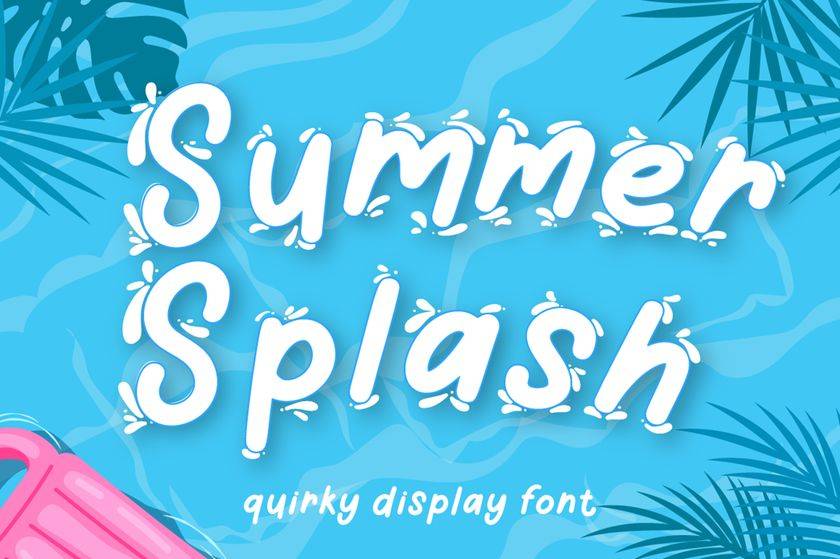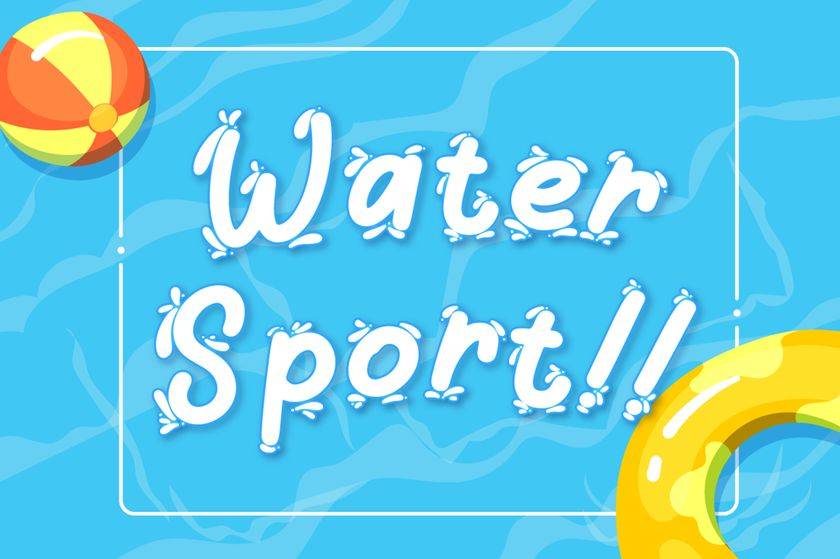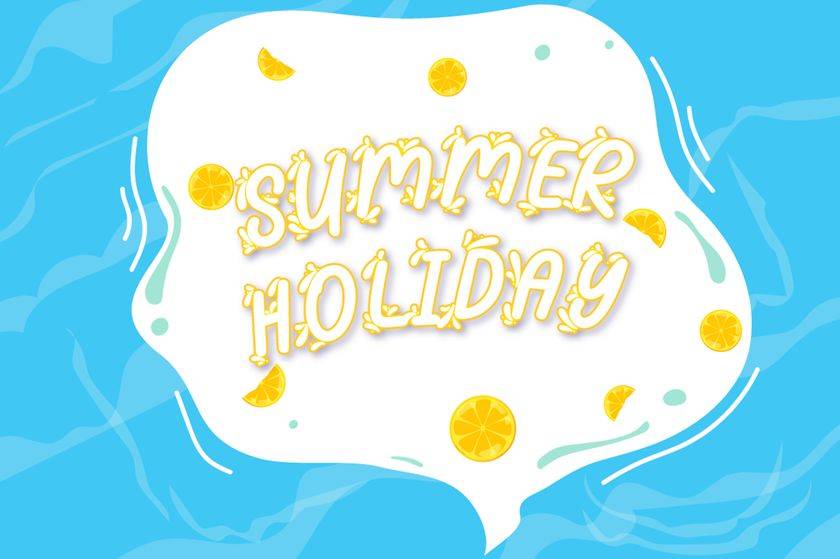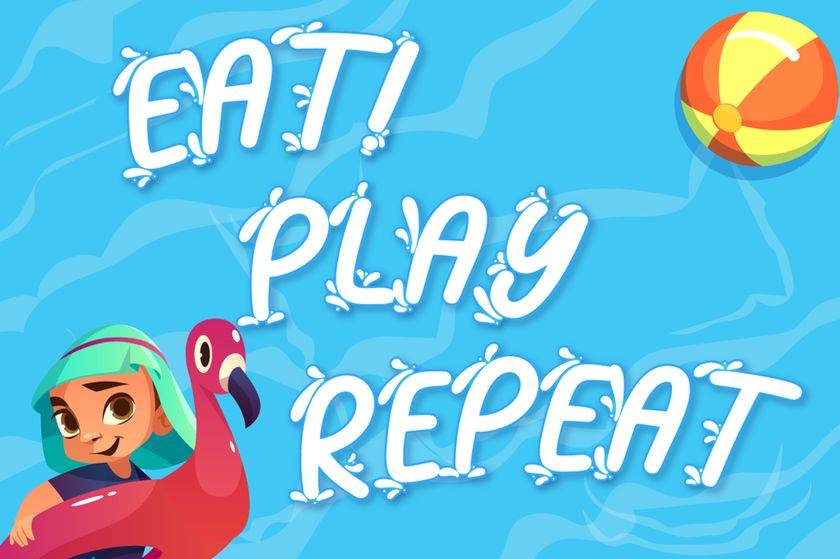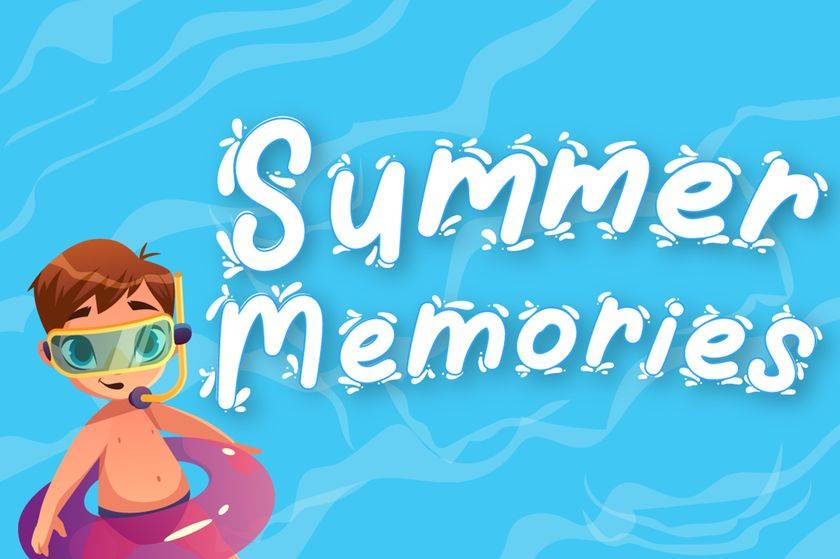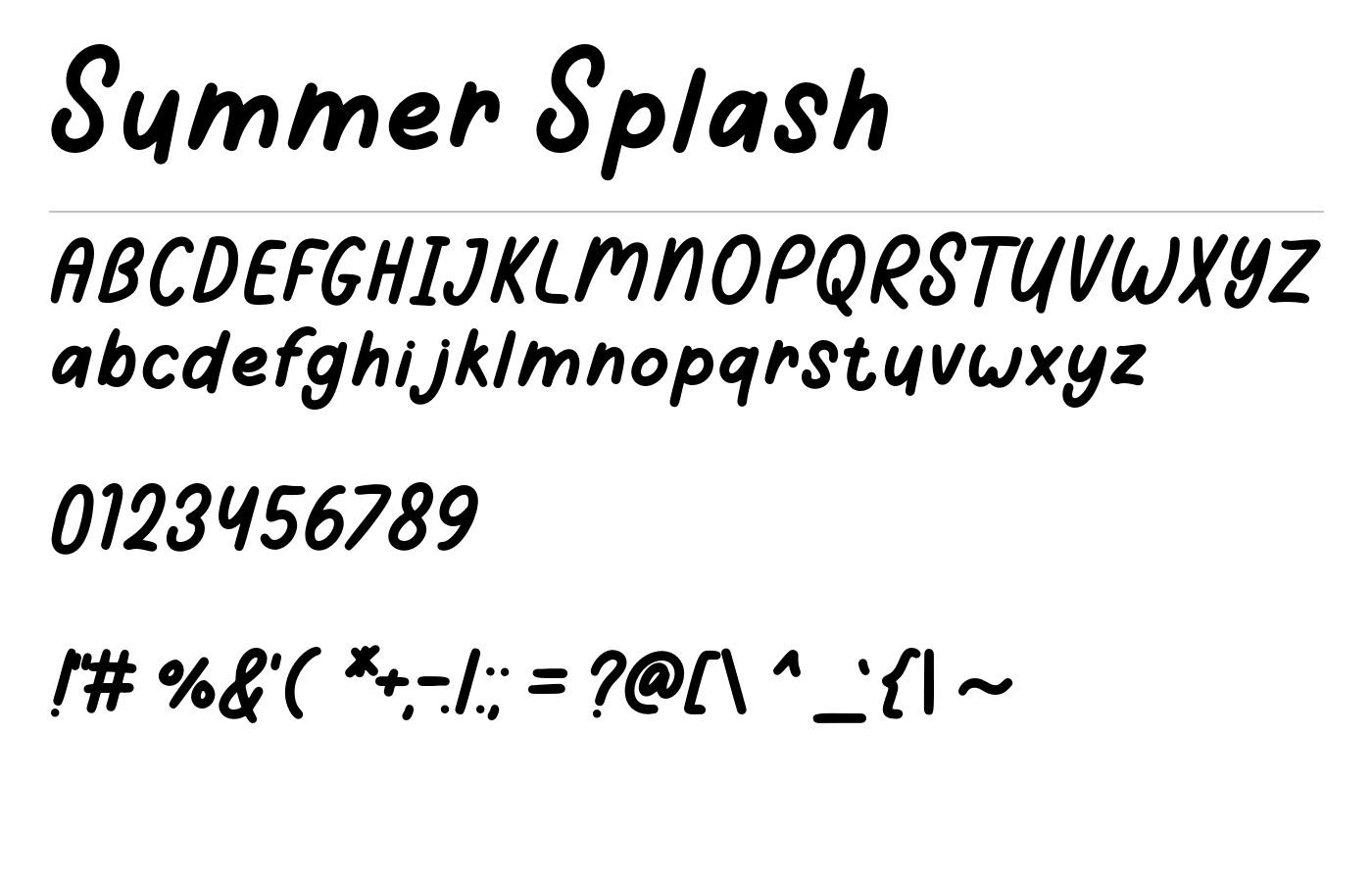
Summer Splash is a lively and casual script font with smooth, rounded strokes that convey a friendly and approachable vibe. Its slightly slanted, brush-like letterforms with medium weight and generous spacing make it perfect for playful branding, summer-themed designs, and informal headlines that need a fun, warm touch. This font works well in logos, packaging, and posters where an energetic yet readable style is desired.
Summer Splash Font
About Summer Splash Font
| Font family | Summer Splash Font |
| Designer | Fadli Ramadhan Iskandar |